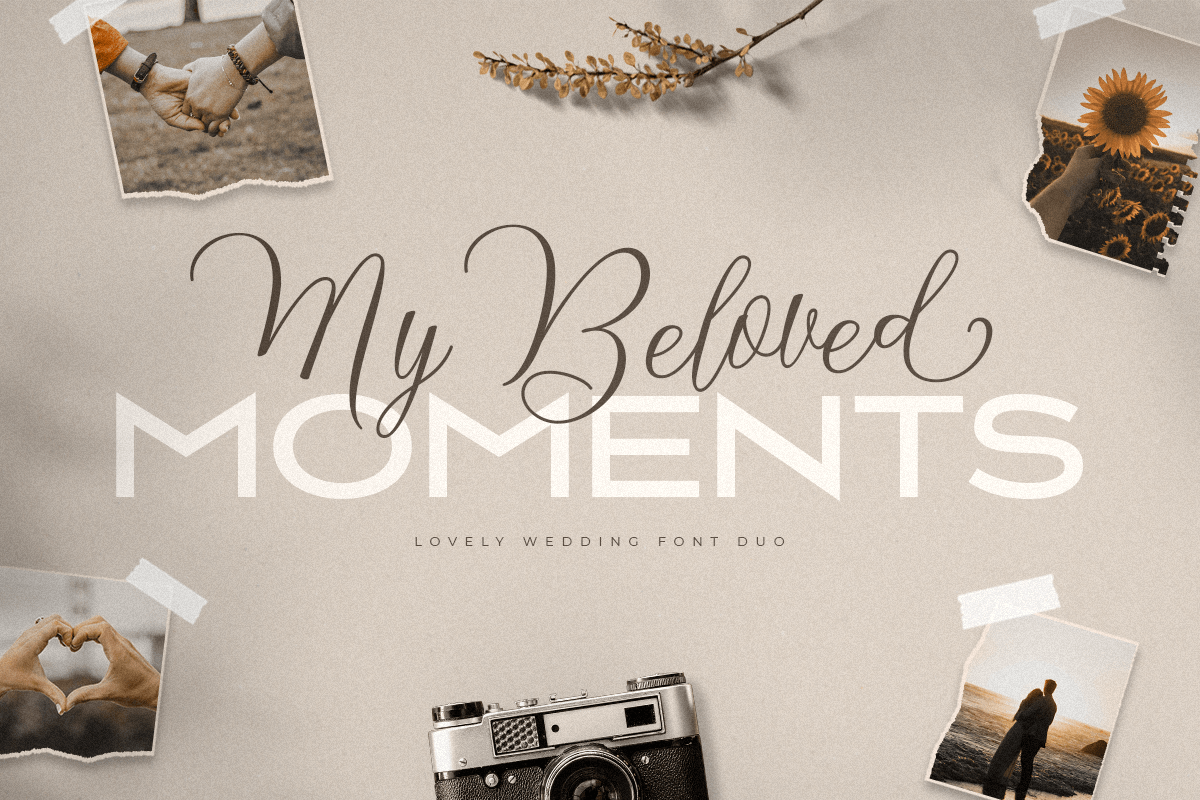
My Beloved Moments
-Lovely Wedding Font Duo
My Beloved Moment is a Lovely Wedding Font Duo best for a brand, sign, and any purpose design.
Based on our experience as a graphic designer who works for a lot of companies, we often are requested to create a classy design. So, here we try to brainstorming and create this font duo to make the idea is going out. This is perfect for BRANDING and ANY PURPOSE DESIGN. You will get classy, elegant, and certainly unique font.